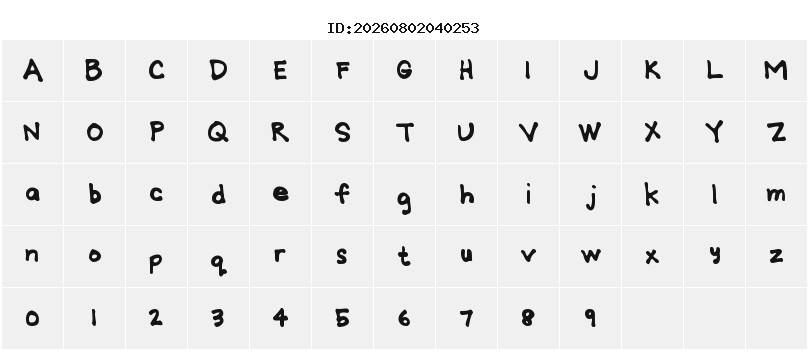
MTF Gridie Preview
• Font Name: MTF Gridie
• Full Font Name: MTF Gridie
• Version: Version 1.00 May 26, 2010, initial release
• Designer: Miss Tiina
About MTF Gridie.ttf
MTF Gridie.ttf is a modern, elegant sans-serif font designed for ultimate readability and visual harmony. Perfect for branding, headlines, web design, and print materials.